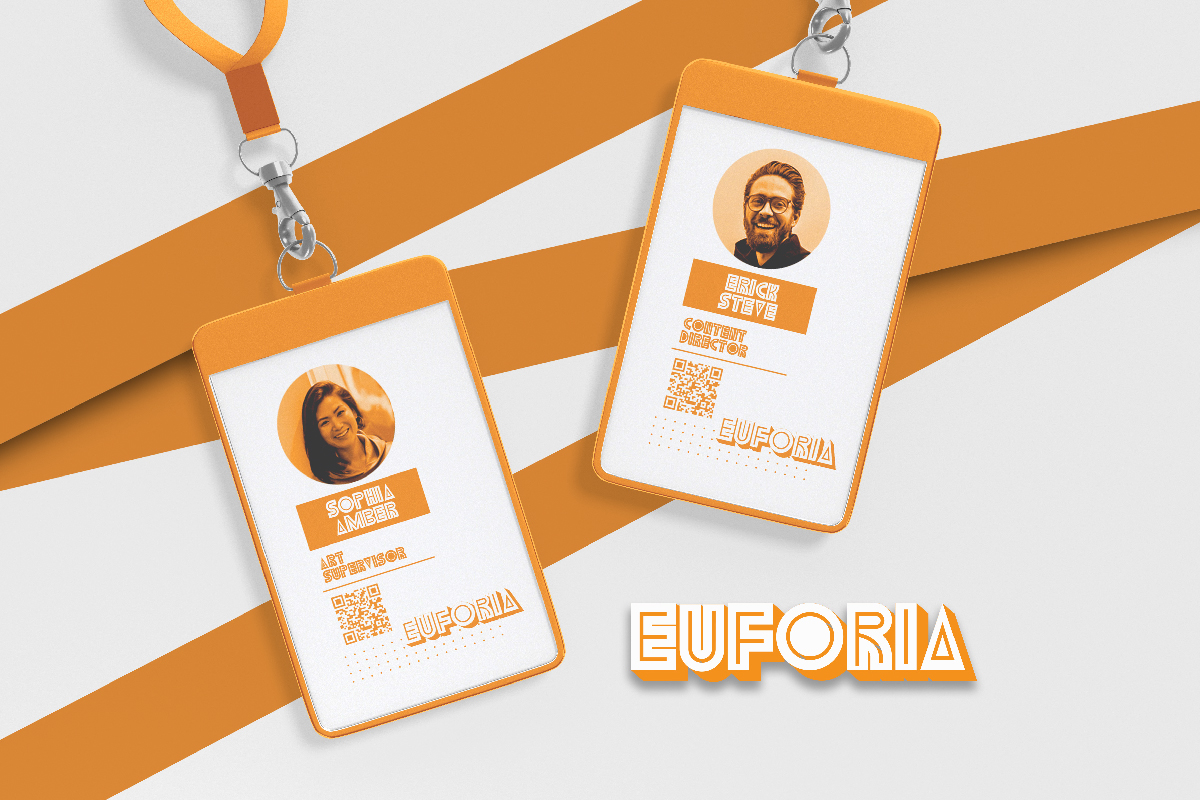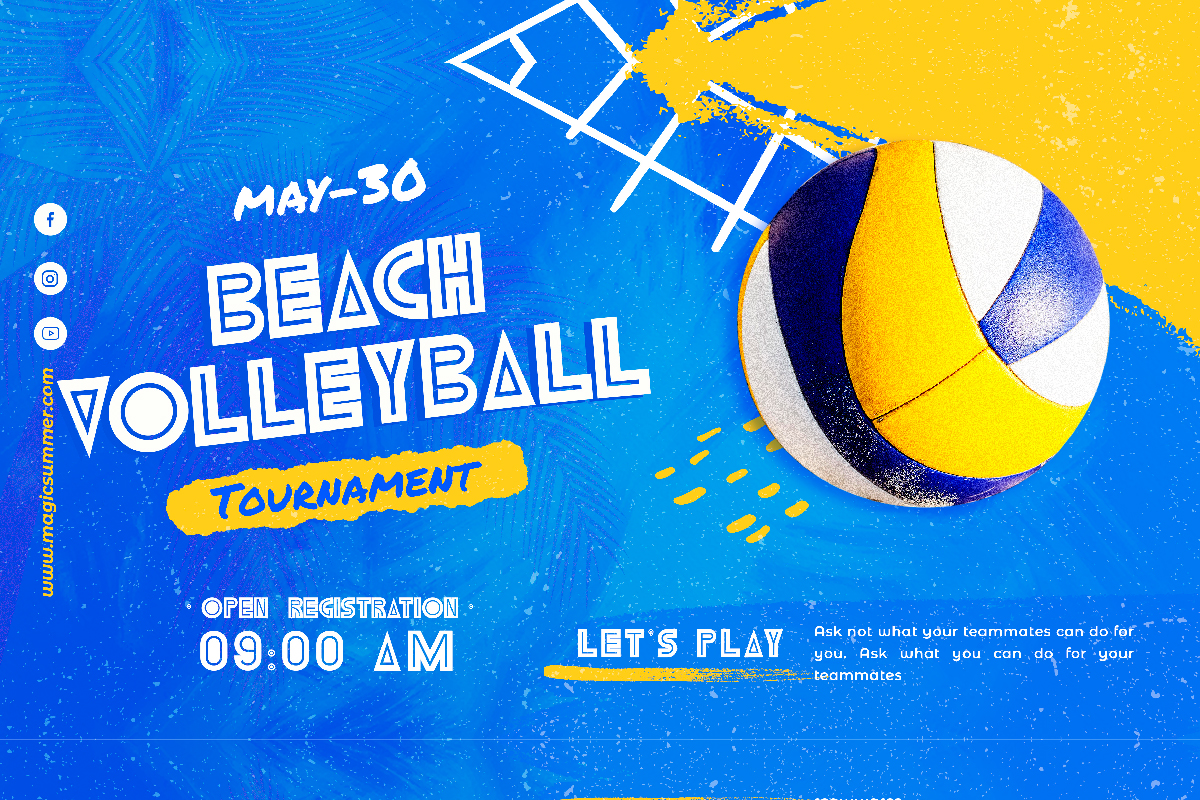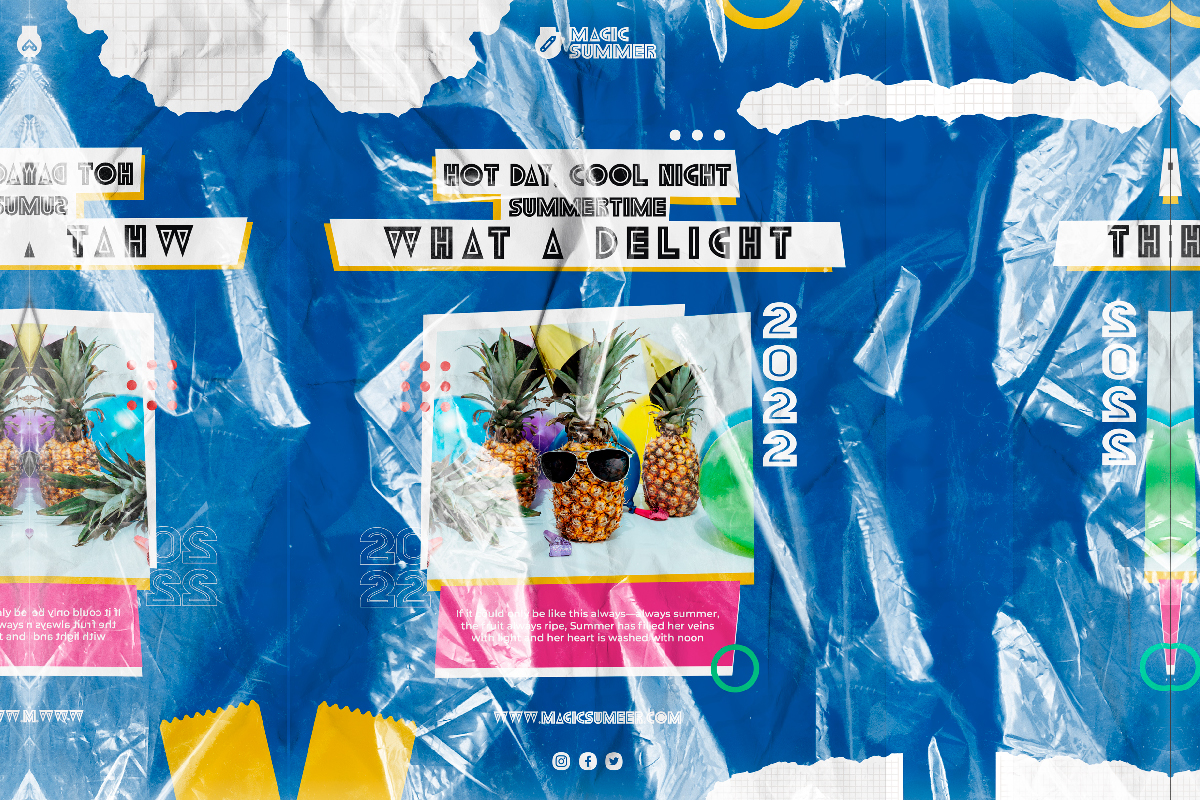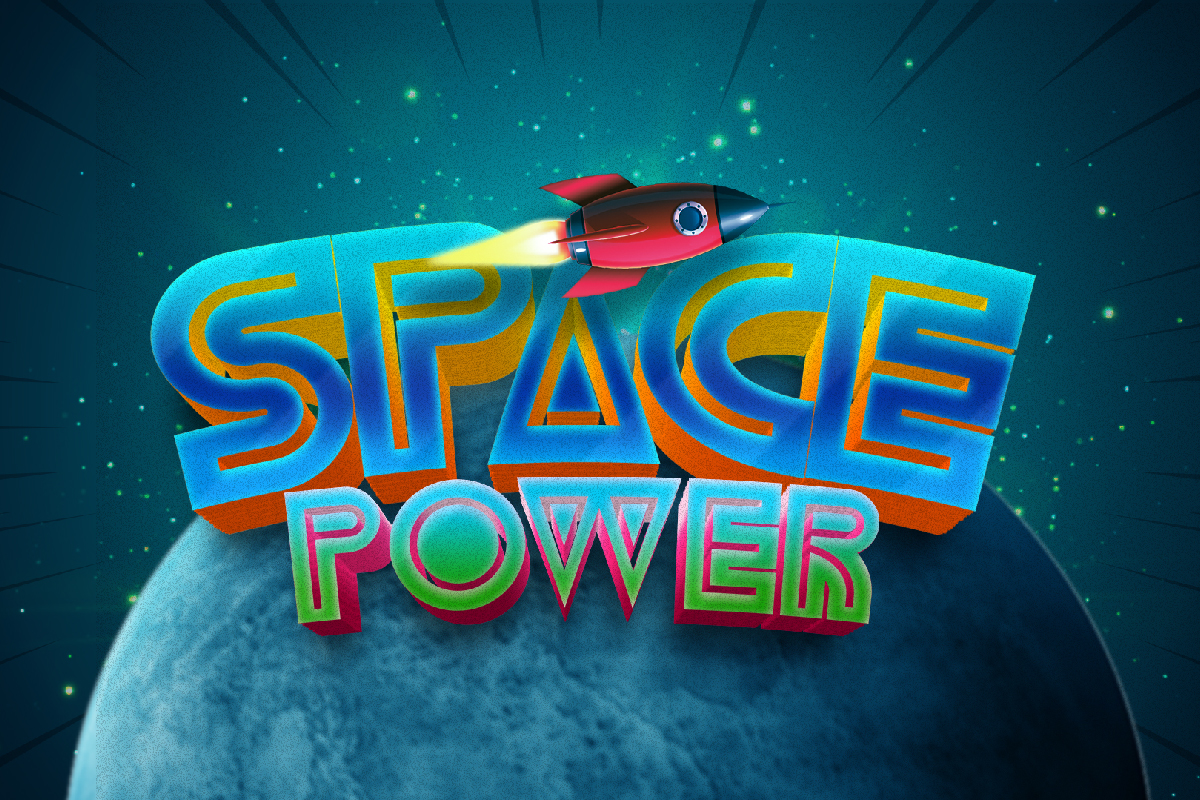
Aliver Aron Font
Aliver Aron Display Font
It’s a futuristic display font with a unique style in each letter, inspired by ancient letters and comic lettering style. This font is well designed to give it a cool and unique looks but is still easy to read. It will be suitable for many industry such as author, cartoon, comic, fashion, food and beverage, game, publishing, sports, sports wear, summers events, and more!